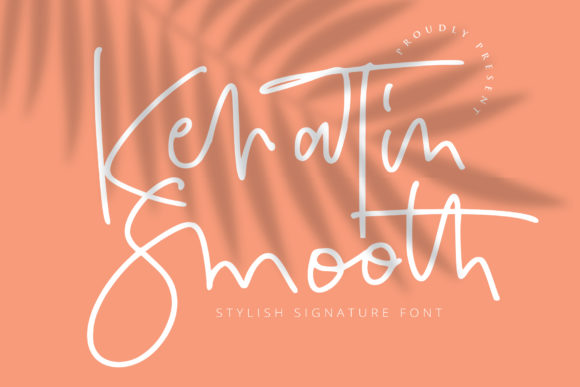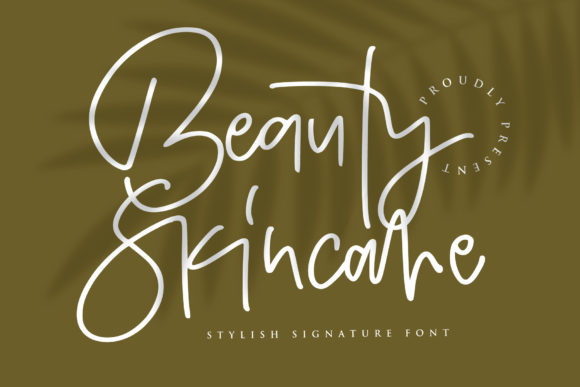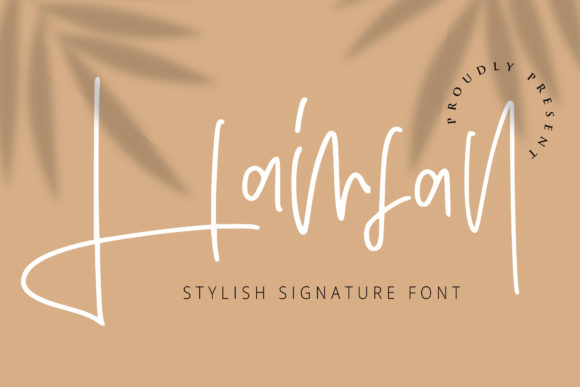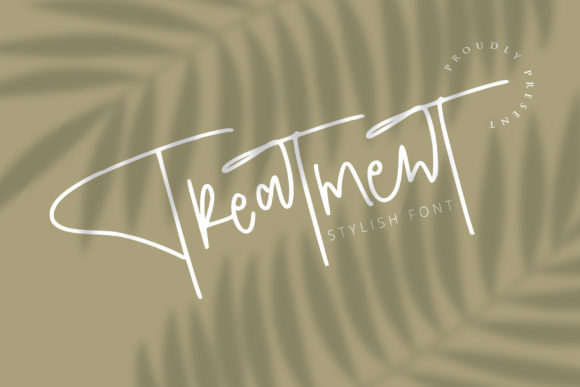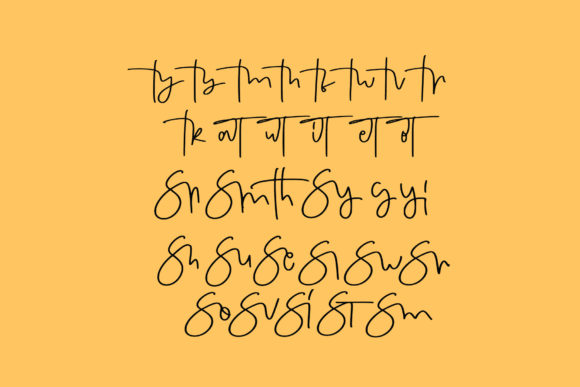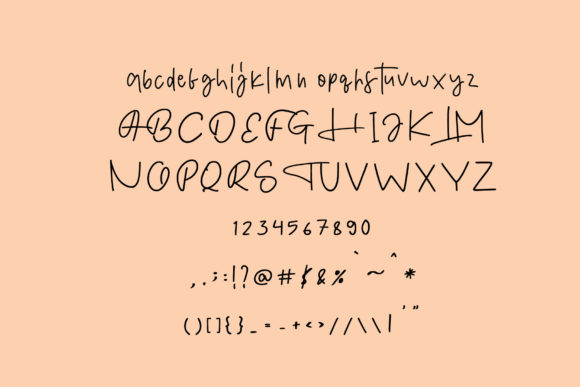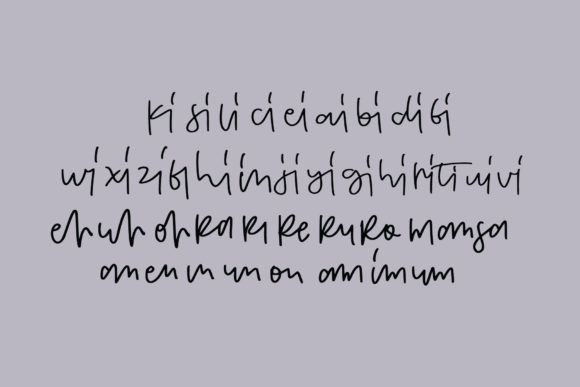
Keratin Smooth Font
About Keratin Smooth Font
Keratin Smooth is a graceful and charming script font that adds a touch of elegance and charm to any design project. With its PUA encoding, accessing all the glyphs and swashes is a breeze, allowing you to fully explore the versatility and beauty of this font.
The dainty and joyful nature of Keratin Smooth makes it an ideal choice for various applications, particularly those that require a romantic and personalized touch. Whether you’re designing wedding invitations, greeting cards, love letters, or any other project that aims to evoke emotions, Keratin Smooth will help you achieve a captivating and enchanting result.
The flowing and delicate strokes of Keratin Smooth create a sense of movement and grace, enhancing the overall aesthetics of your design. Each letter is carefully crafted to maintain a balanced and harmonious composition, ensuring readability while exuding a sense of sophistication.
The versatility of Keratin Smooth allows it to complement different design styles and themes. It can effortlessly enhance both modern and vintage-inspired designs, adding a touch of timeless beauty. The font adapts well to various color palettes, backgrounds, and graphical elements, making it a versatile choice for creating visually stunning and impactful designs.
Whether you’re working on wedding stationery, love-themed branding, social media graphics, or any other project that requires a touch of romance, Keratin Smooth will help you achieve a refined and charming result. Its effortless elegance and charm will captivate the hearts of your audience and leave a lasting impression.
In summary, Keratin Smooth is a graceful and charming script font that brings elegance and romance to your designs. With its PUA encoding, accessing the various glyphs and swashes is seamless, allowing you to fully explore its versatility. Whether you’re designing wedding invitations, cards, or any other project that needs a romantic and personalized touch, Keratin Smooth is an ideal choice that will add a touch of sophistication and joy to your creations.